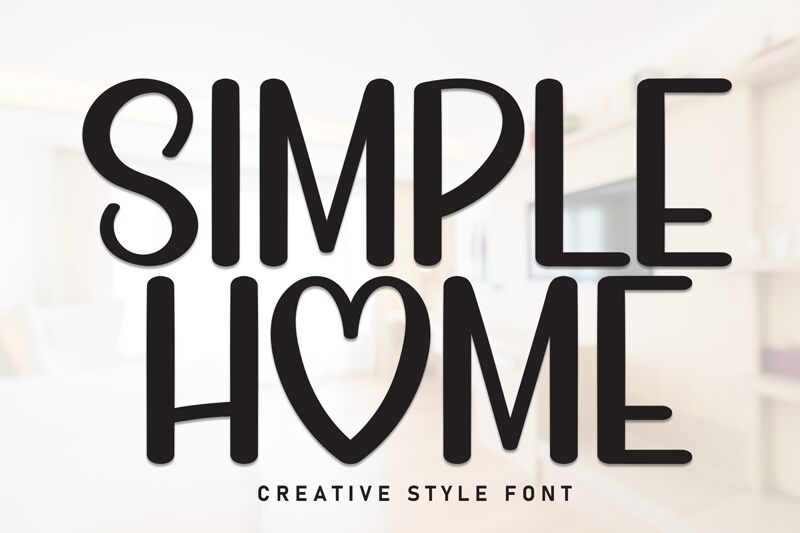
Simple Home font by Scratchones is a free script font that exudes a sense of warmth and creativity. Its rounded, contemporary style makes it an inviting choice for projects that require a friendly and approachable aesthetic. The font is eye-catching and decorative, making it a unique choice for designers looking to add a touch of whimsy to their work.
Suitable for a wide range of use cases, Simple Home can be used in branding, logos, packaging design, invitations, greeting cards, digital content, social media graphics, book covers, posters, and promotional materials. Its balanced and modern look is perfect for creating an engaging visual experience.